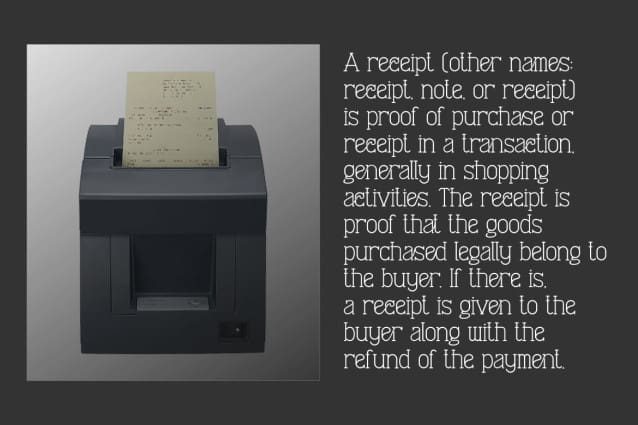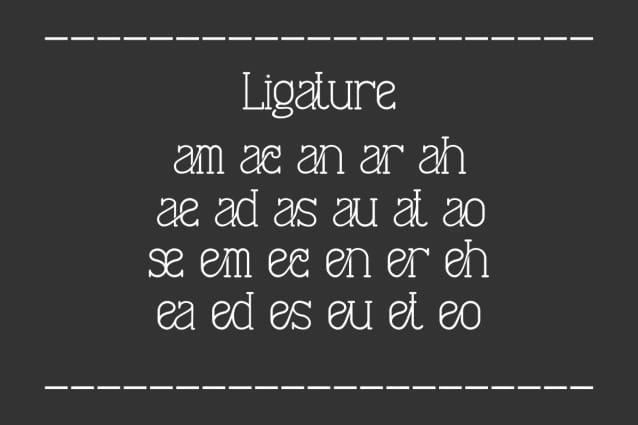
Tranfer Font
Tranfer Font – A Typewriter Font is a modern and authentic font. Perfect for professional needs and product branding, this font is suitable for all branding projects such as quotes, logos, blog headers, posters, ribbons, letters, invitations, stationery, etc. Designed to be versatile and flexible, it can be used on a variety of projects and media. Extraordinary in a variety of contexts